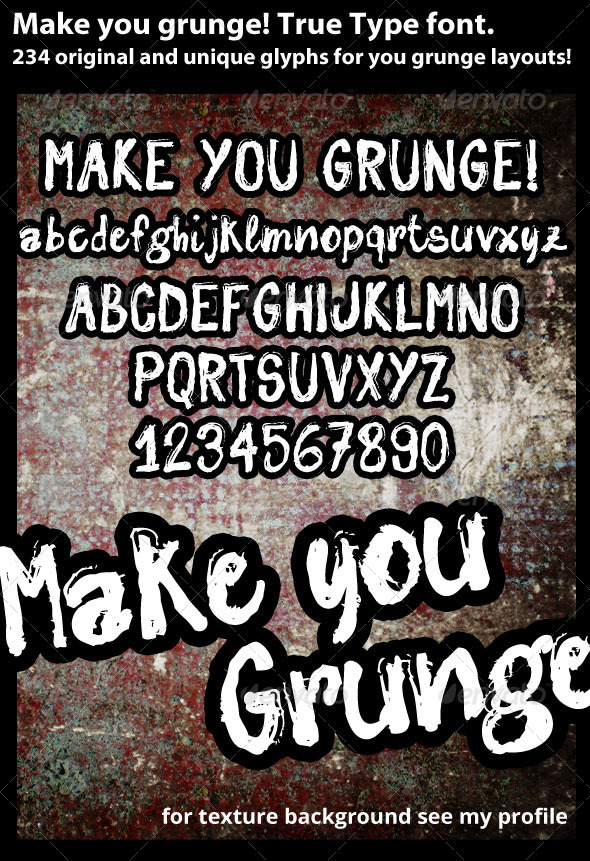
A complete set of 234 glyphs ( see ISO /IEC 8859-1 for coverage languages) for a very cool Grunge font! All uppercase and lowercase alphabets. (A-Z and a-z) All numerals (0-9) All special characters with delimiters and symbols, along with a bullet. Currency symbols like Dollar, Pound, Euro and Yen. Exclusevely on graphicriver! .ttf file included very easy to install, see “how to install a font” file included
You use this font in brochure designs, posters, promotional stuffs, and almost anything that are in needed of grunge feel.